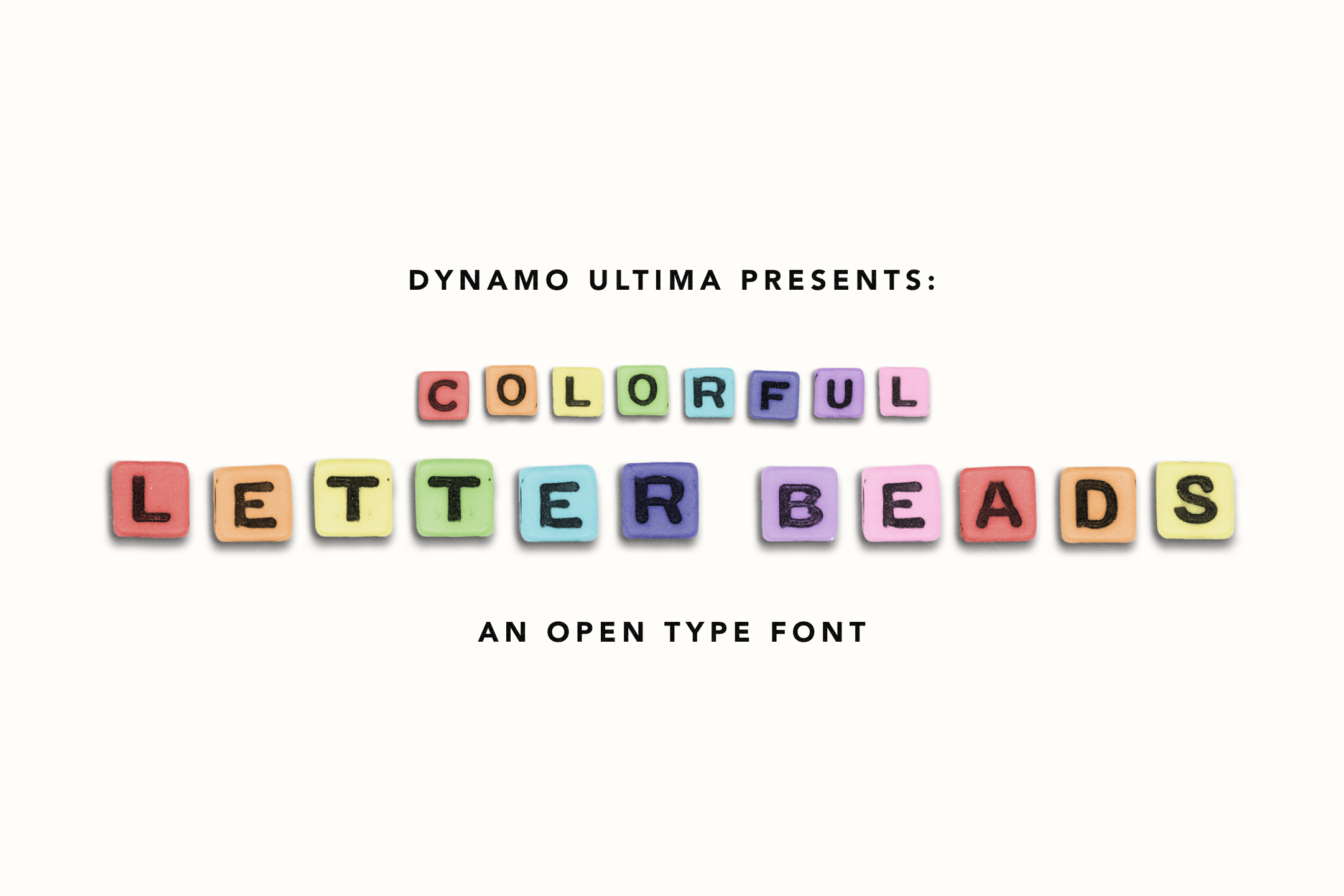
Color Letter Beads - Alphabet Font
Use the shift key to preview white letter beads
(While using the multi-color beads) All letters have 2 different colors, upper and lowercase. to avoid double colors.
Add some realistic flair to your projects, make your Instagram posts more dynamic & create some fun new ways to express yourself with this Alphabet Letter Font Set! Colorful Letter Beads is a handmade Alphabet Letter Bead Open Type Font that you can install on your computer or upload to Canva. We've scanned each individual letter in as well as added shadows to give it a 3D effect. This will add dazzling display text to your Instagram posts, posters, book covers, packaging & more!
If you want to customize this font even further, use the PNG Letterbeads to add your own custom shadows. This makes it so that you are able to adjust the angle of shadows of the beads or put them in an arc or different shapes. See the images above for an example.